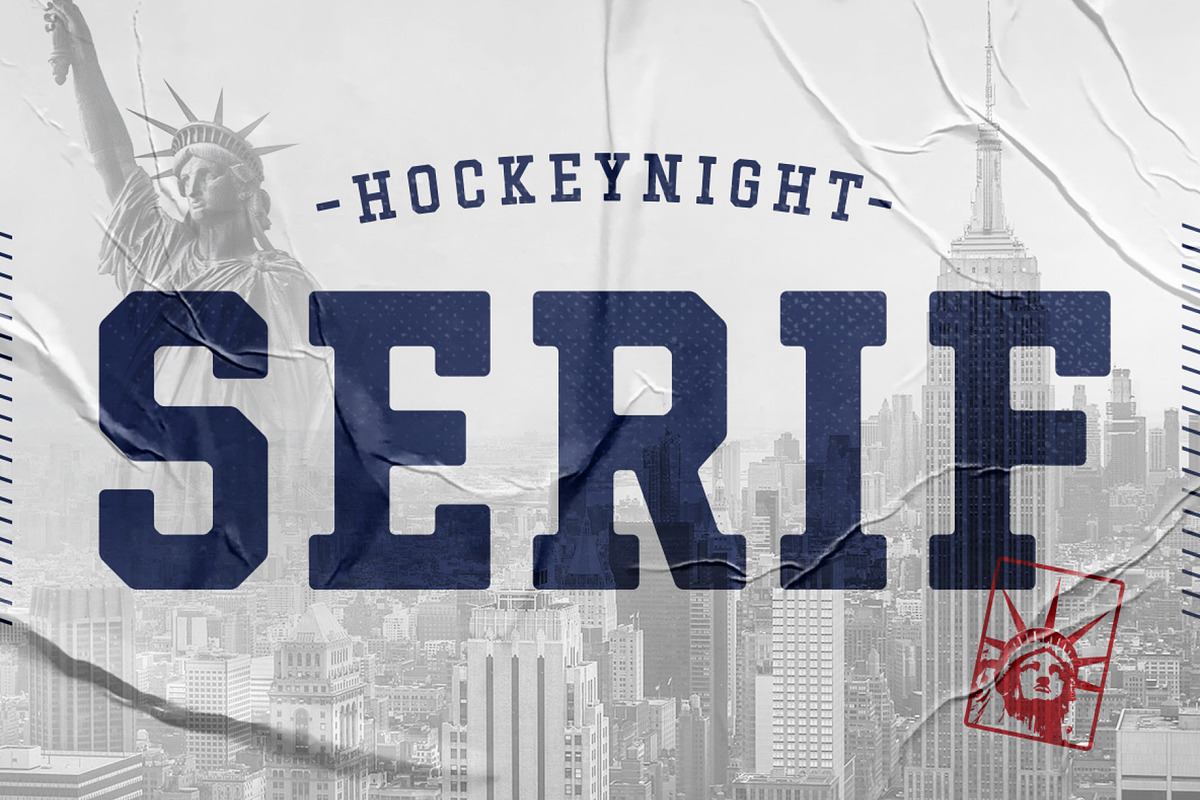
Hockeynight Serif Font Free Download is a bold and stylish serif typeface that blends classic structure with a touch of sporty energy. Its strong lines and vintage flair make it ideal for headlines, posters, sports branding, apparel, and editorial layouts that need to make a confident statement.
With its sharp serifs and balanced proportions, Hockeynight delivers excellent readability while maintaining a distinct, eye-catching character. The font includes uppercase letters, numerals, and punctuation—making it a reliable choice for high-impact typography in both print and digital projects.
Whether you’re designing for a retro-inspired sports brand or looking to add a dynamic serif to your collection, Hockeynight Serif Font Free Download is a great option to explore. Use it freely for personal testing and mockups, and be sure to secure a commercial license for professional use. Step up your design game with this bold and character-rich serif font.